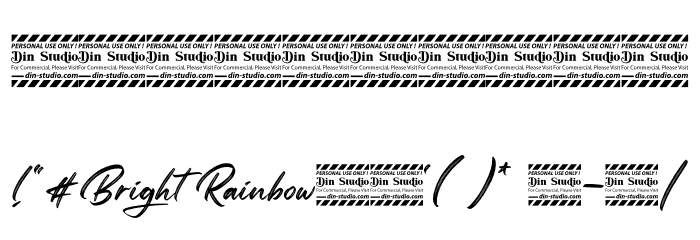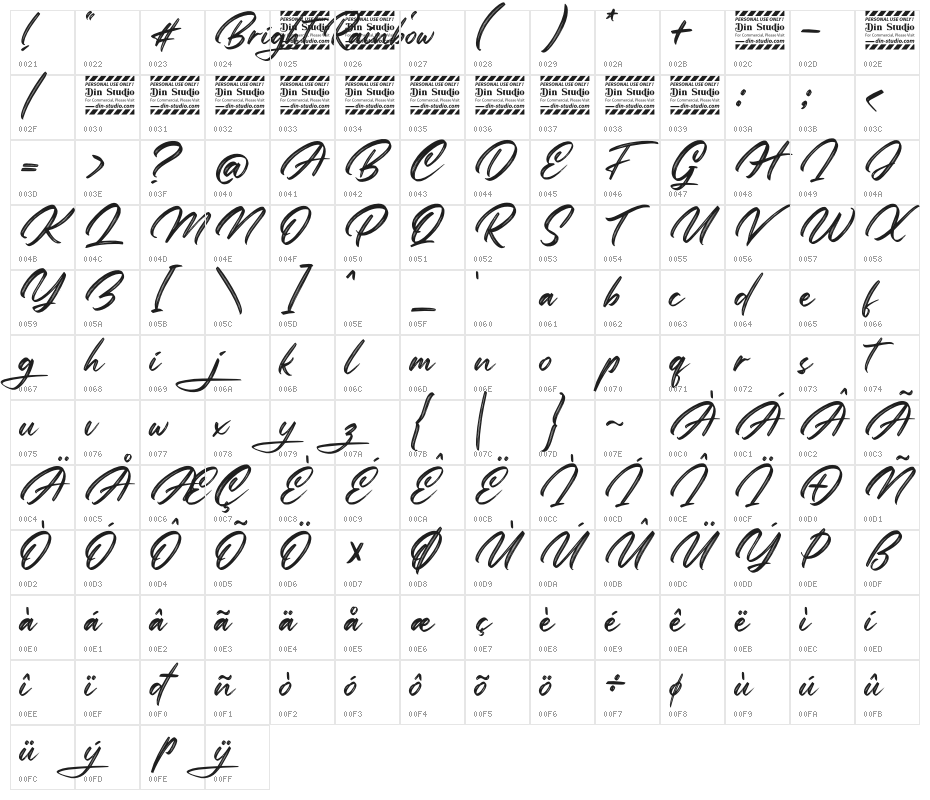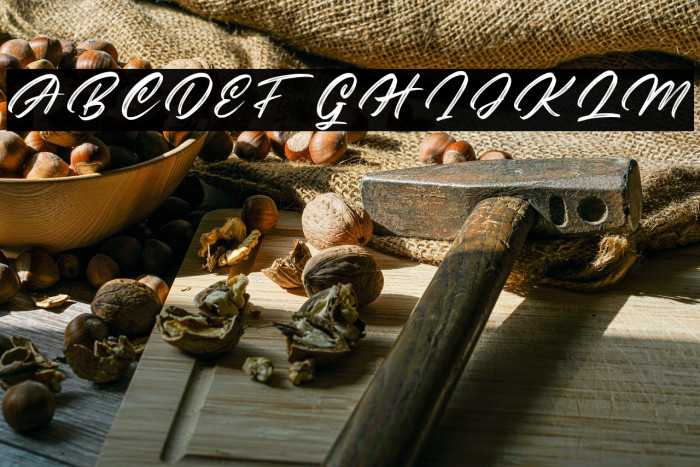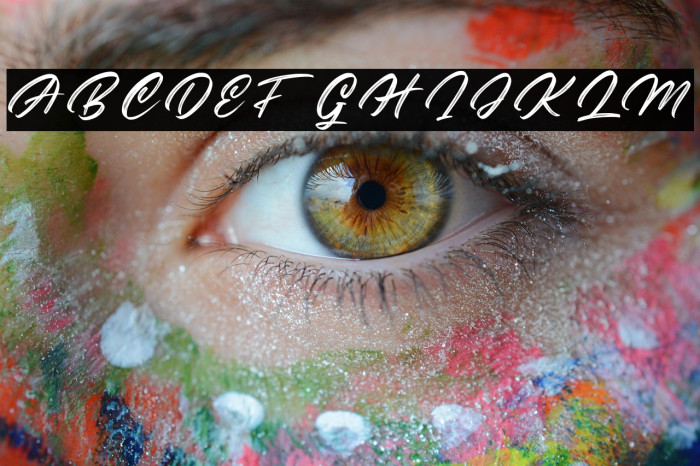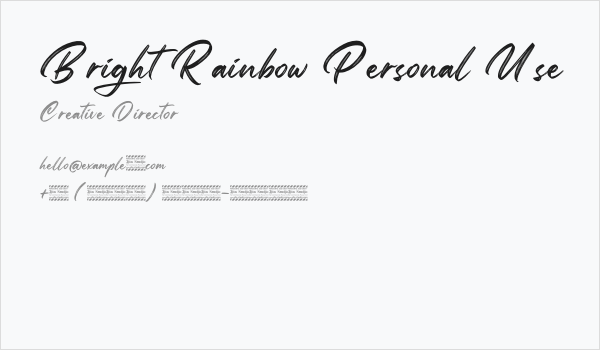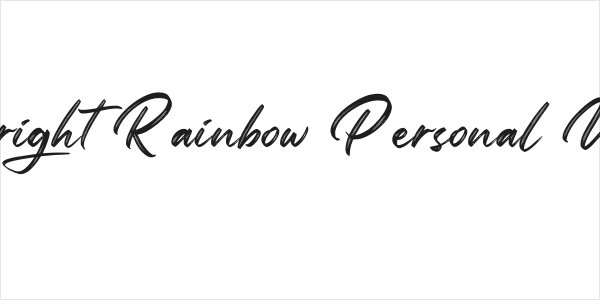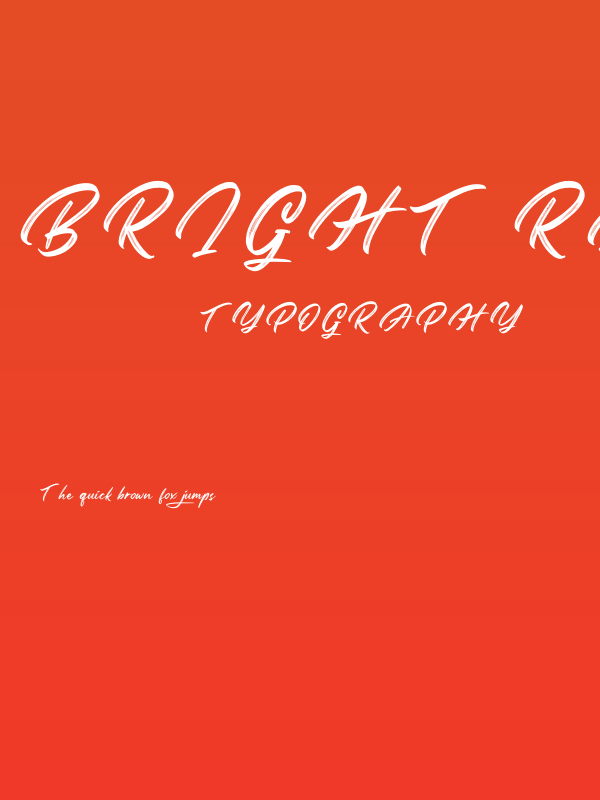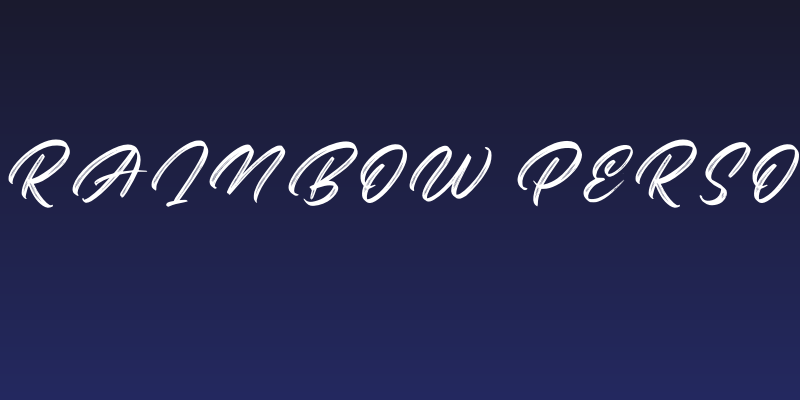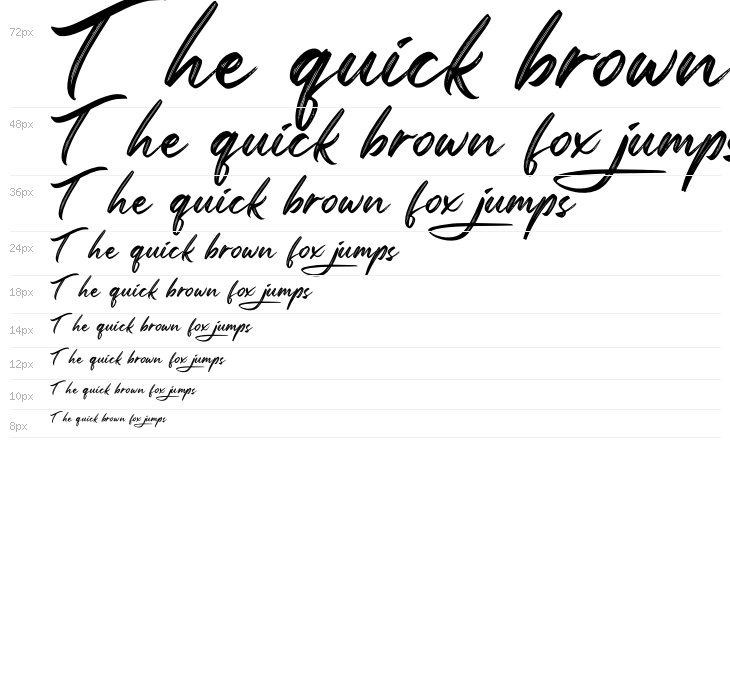
Bright Rainbow Personal Use Font
Bright Rainbow Personal Use Description
This font features a dynamic and energetic script style, characterized by its fluid, handwritten appearance. The uppercase letters are elegant and slightly slanted, while the lowercase letters maintain a consistent flow with bold strokes. The font exudes a sense of movement and creativity, making it ideal for projects that require a personal touch. The special characters are uniquely styled to complement the overall aesthetic, adding a playful yet sophisticated element. The font's boldness and expressive nature make it stand out, perfect for eye-catching designs.
Overall StyleModern, Decorative
Use CaseLogos, Headlines, Creative projects
Proposed ProjectsIdeal for branding, invitations, posters, and creative projects that require a personal and artistic flair.